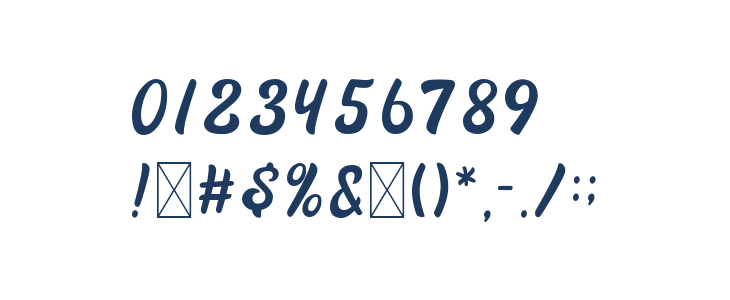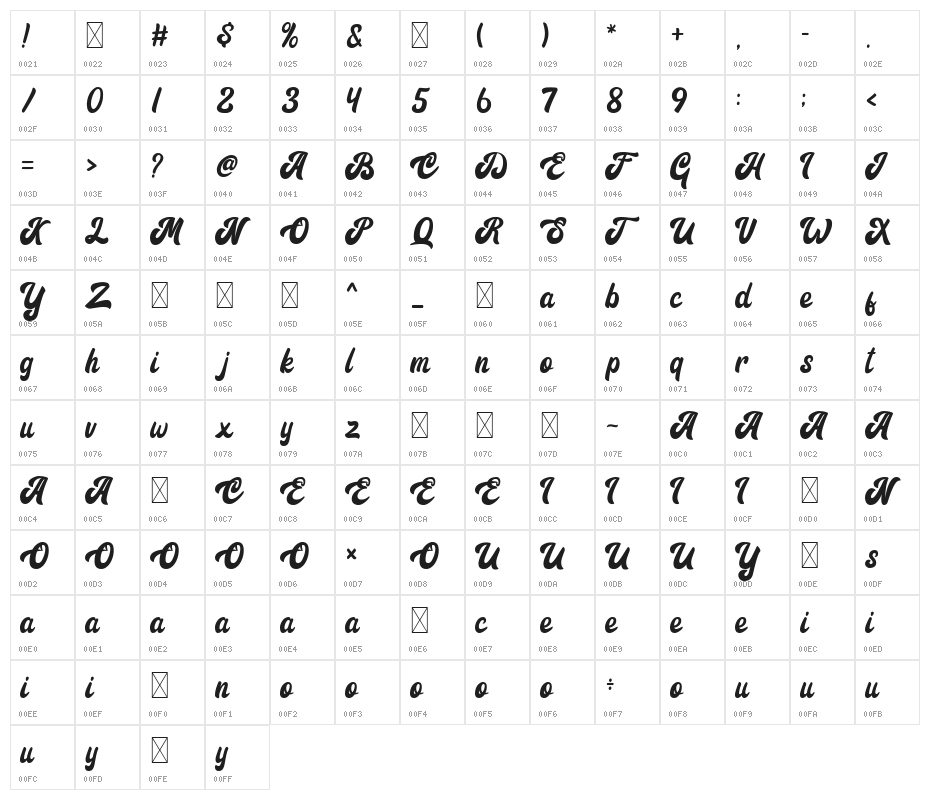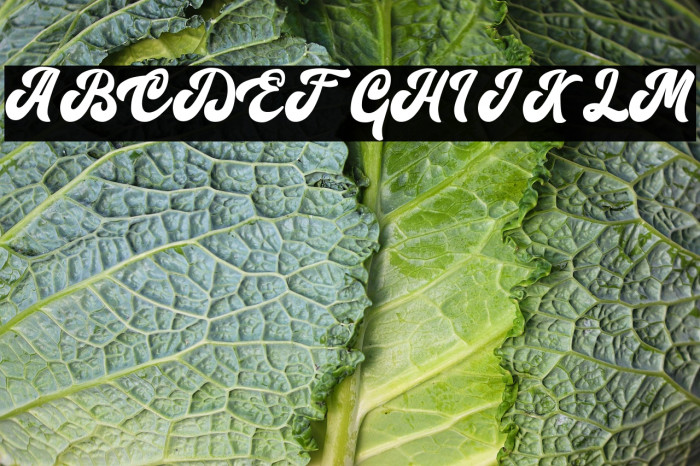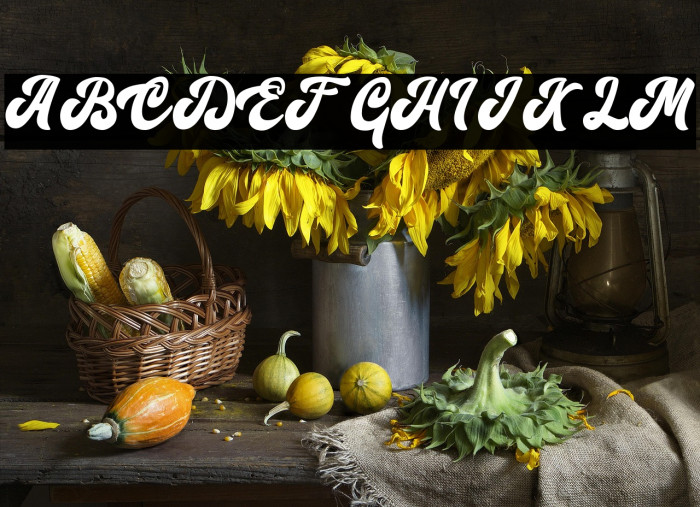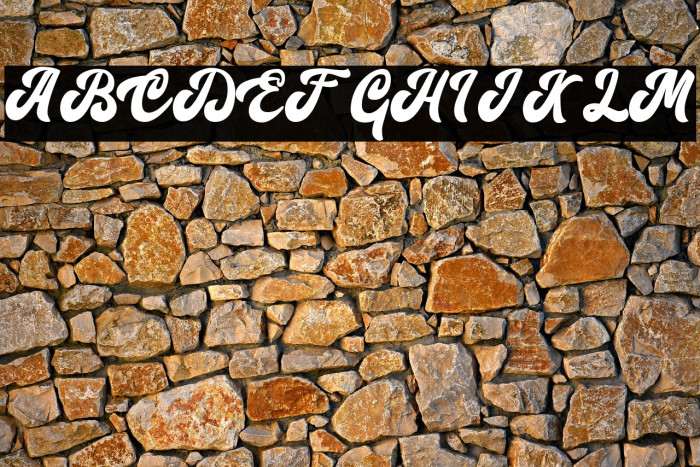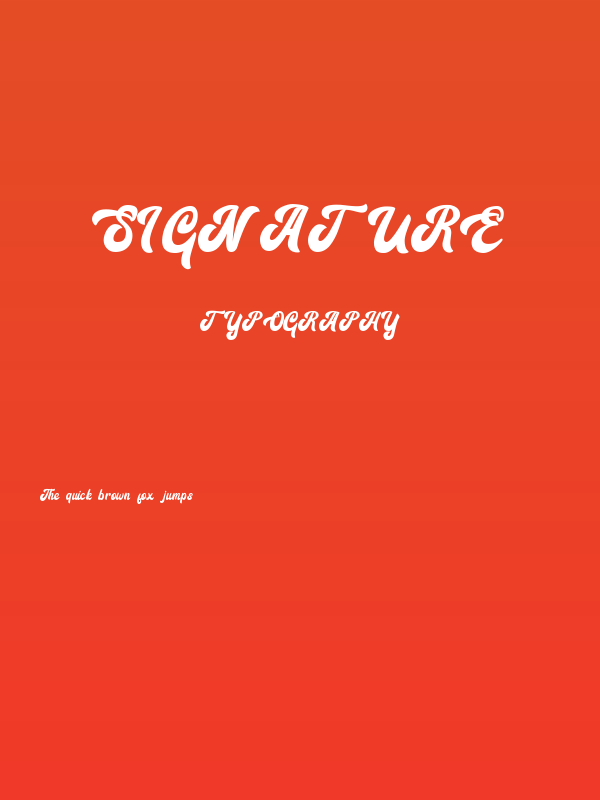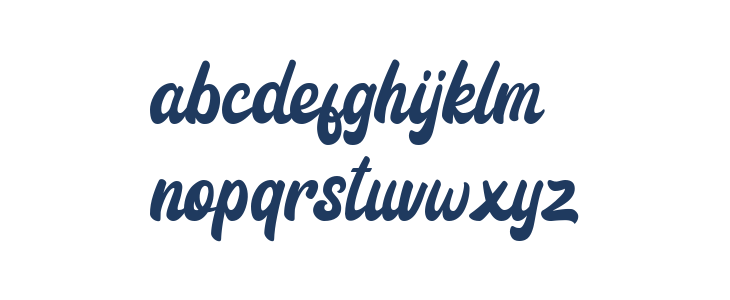
Signature Font
Signature Description
This font features a flowing, cursive style that mimics the fluidity of handwriting. The characters are connected, creating a seamless and elegant appearance. The uppercase letters are bold and prominent, while the lowercase letters maintain a consistent flow, enhancing readability. The numbers and special characters are designed to match the overall script style, ensuring uniformity across all elements. This font exudes a sense of sophistication and personal touch, making it ideal for projects that require a handwritten feel.
| Use Case | Logos, Invitations, Personal Branding |
| Proposed Projects | Ideal for wedding invitations, personal branding, greeting cards, and logo design. |